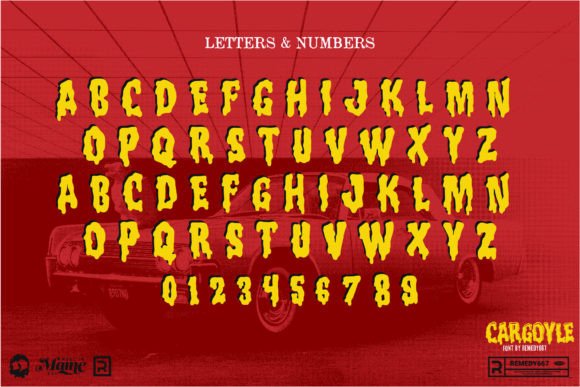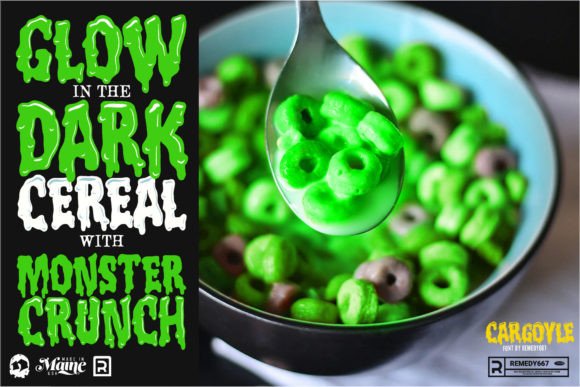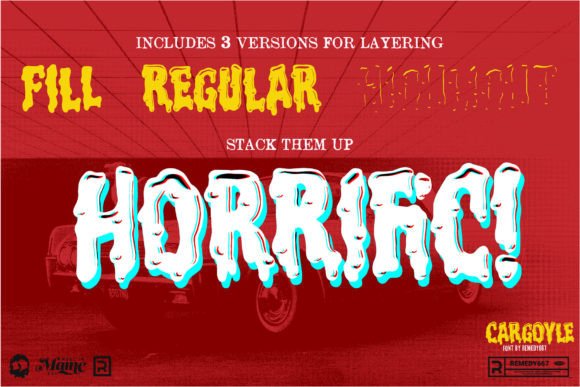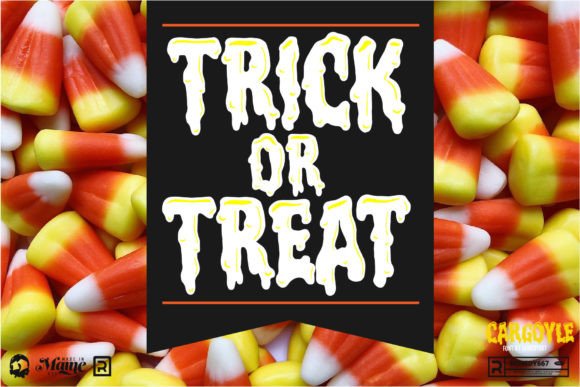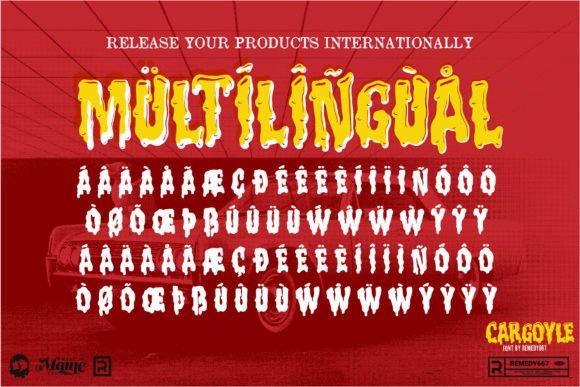
Cargoyle Font: Unleash the Horror in Your Designs
Are you searching for a font that embodies the eerie and terrifying essence of the 90s teen horror era? Look no further than the Cargoyle Font. This unique typeface is dripping with blood and oozing with horror, making it the perfect addition to your design projects. With its three layers of “ooze,” the Cargoyle Font is sure to add a spine-tingling touch to any creative endeavor.
The Perfect Font for Horror and Halloween-themed Designs
The Cargoyle Font is specifically designed to evoke the nostalgia of 90s teen horror movies and books. Its distressed and worn look gives it a creepy, aged feel that’s perfect for Halloween decorations, horror-themed posters, and other spooky designs. Whether you’re creating a flyer for a horror movie night, designing a haunted house invitation, or crafting a creepy costume, the Cargoyle Font is sure to set the tone for a terrifying experience.
Adding a Touch of Terror to Your Designs
What makes the Cargoyle Font truly unique is its three-layer “ooze” effect. This feature allows you to add depth and dimension to your text, giving it a dripping, blood-like effect that’s sure to send chills down the spine. Imagine adding a splash of terror to your latest novel’s cover design, or spooking up your resume with a font that’s sure to make it stand out from the crowd.
Beyond Horror: Using Cargoyle in Other Design Projects
While the Cargoyle Font is perfect for horror-themed designs, its versatility makes it suitable for a wide range of creative projects. Use it to add a touch of edginess to your branding, or to create eye-catching headlines for your blog or website. The Cargoyle Font is also great for crafters who want to add a personal touch to their DIY projects, such as handmade cards, gift tags, or scrapbooking pages.
Tips for Using the Cargoyle Font
- Experiment with different colors: The Cargoyle Font looks great in bold, blood-red colors, but don’t be afraid to experiment with other colors to create a unique look.
- Play with layering: Take advantage of the three-layer “ooze” effect to add depth and dimension to your text.
- Mix and match with other fonts: Combine the Cargoyle Font with other fonts to create a unique and eye-catching design.
If you’re looking for a font that will add a touch of horror and terror to your designs, look no further than the Cargoyle Font. With its unique three-layer “ooze” effect and distressed, worn look, this typeface is perfect for any project that requires a spooky touch. Whether you’re a designer, crafter, or simply someone who loves horror, the Cargoyle Font is sure to become a favorite in your creative arsenal.
Get Creative with Cargoyle